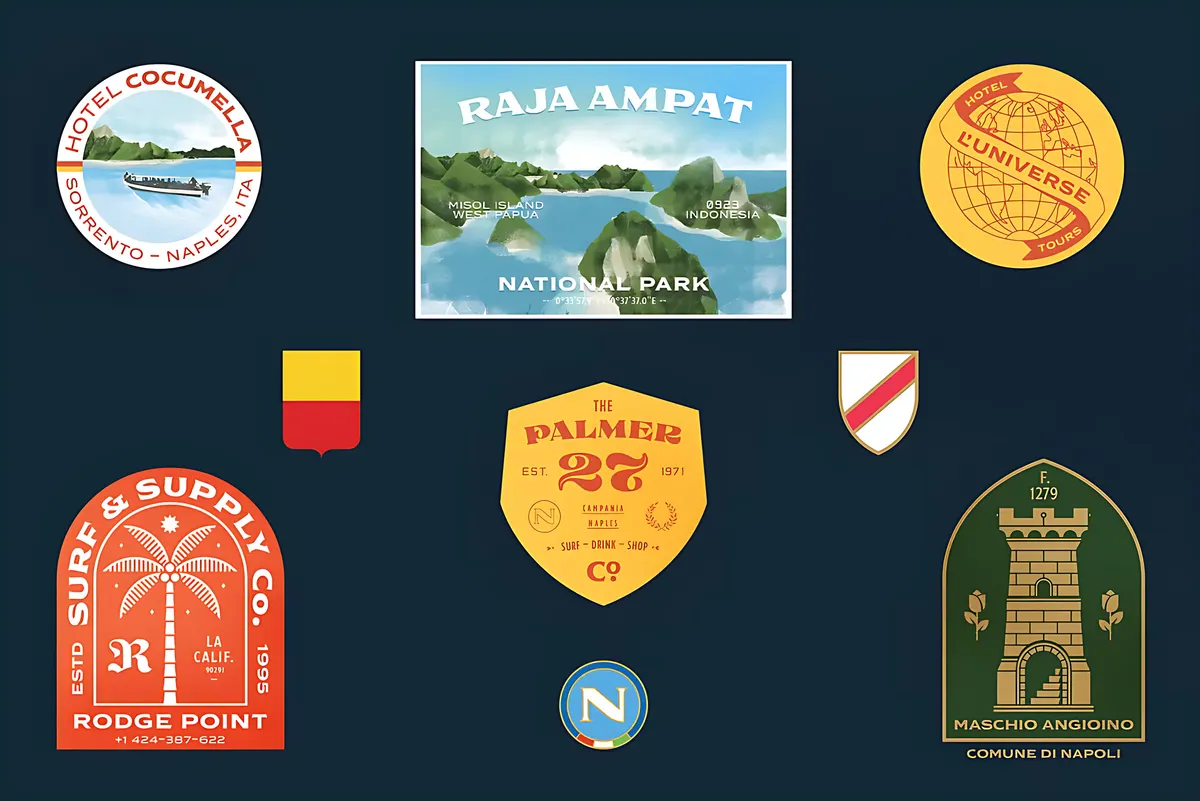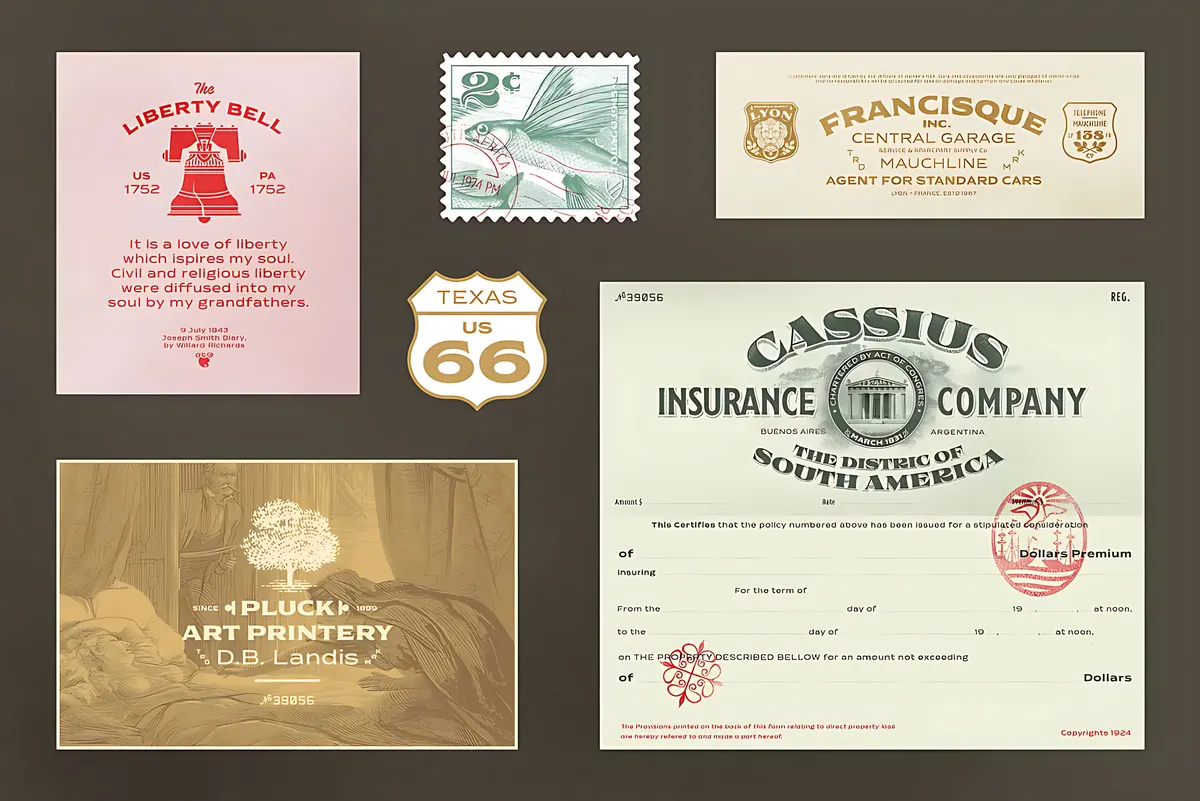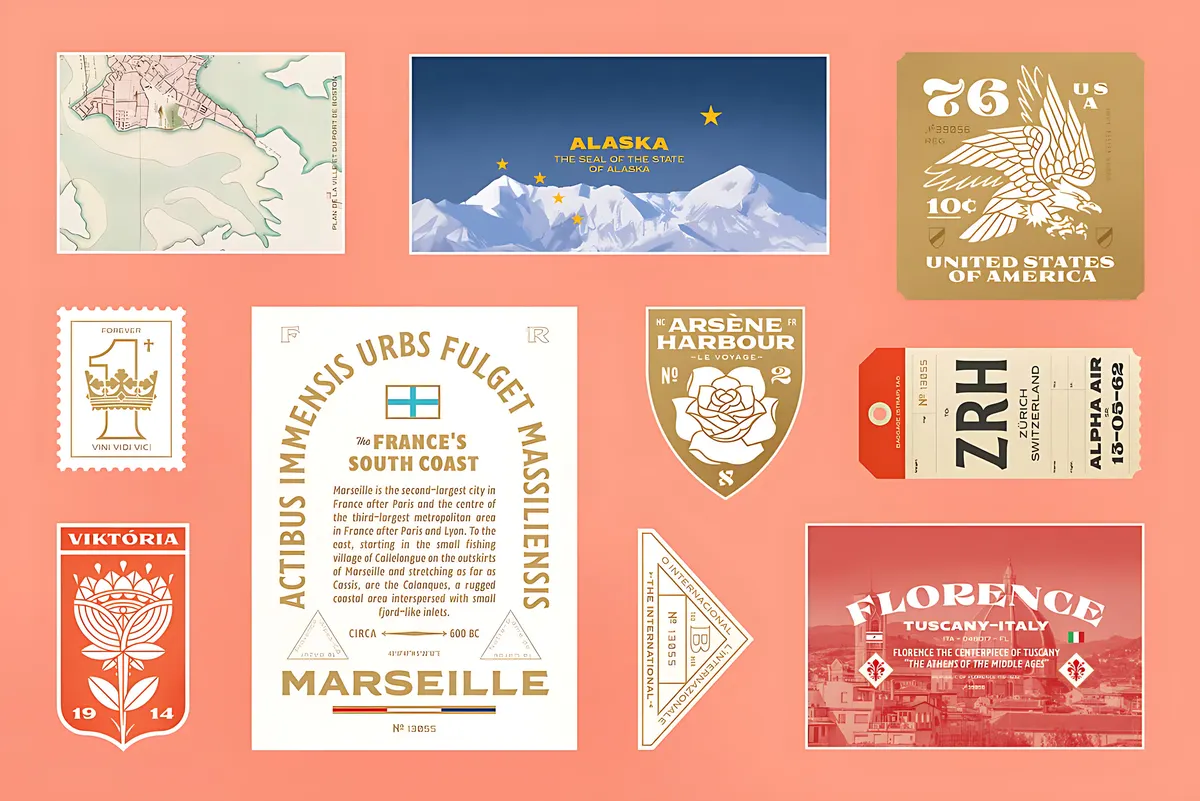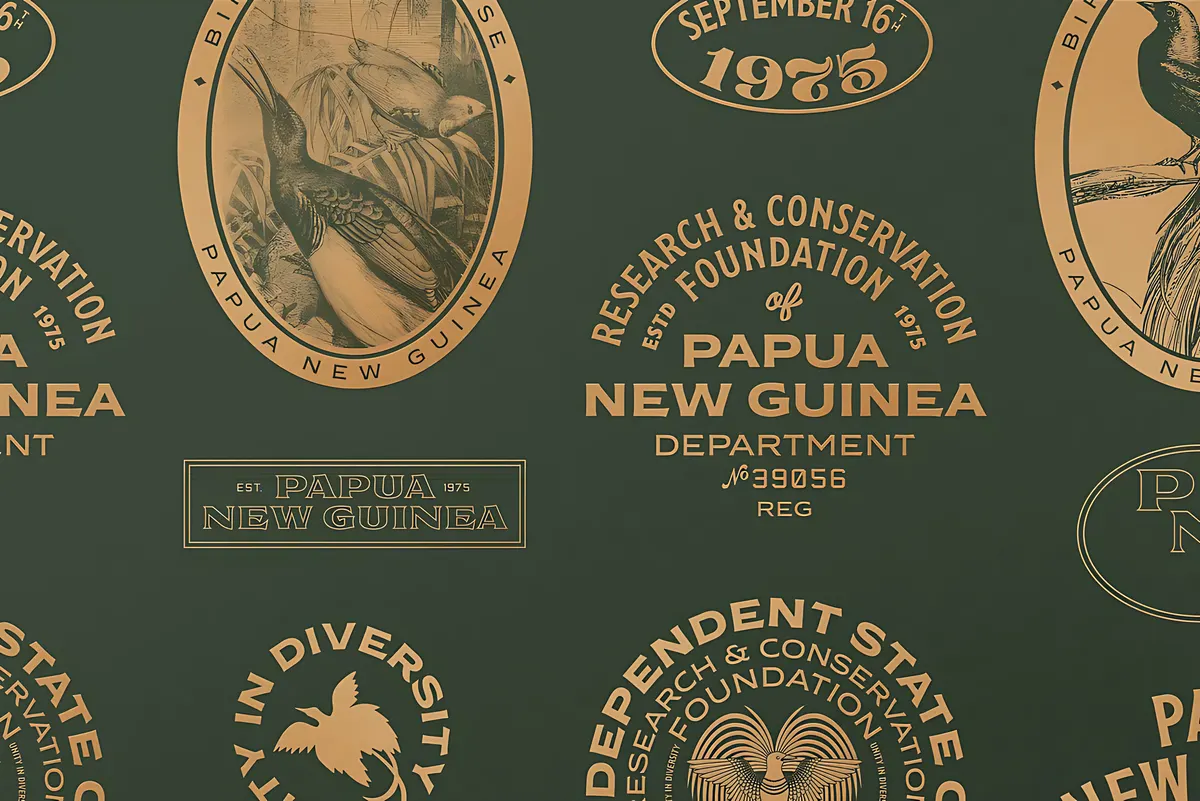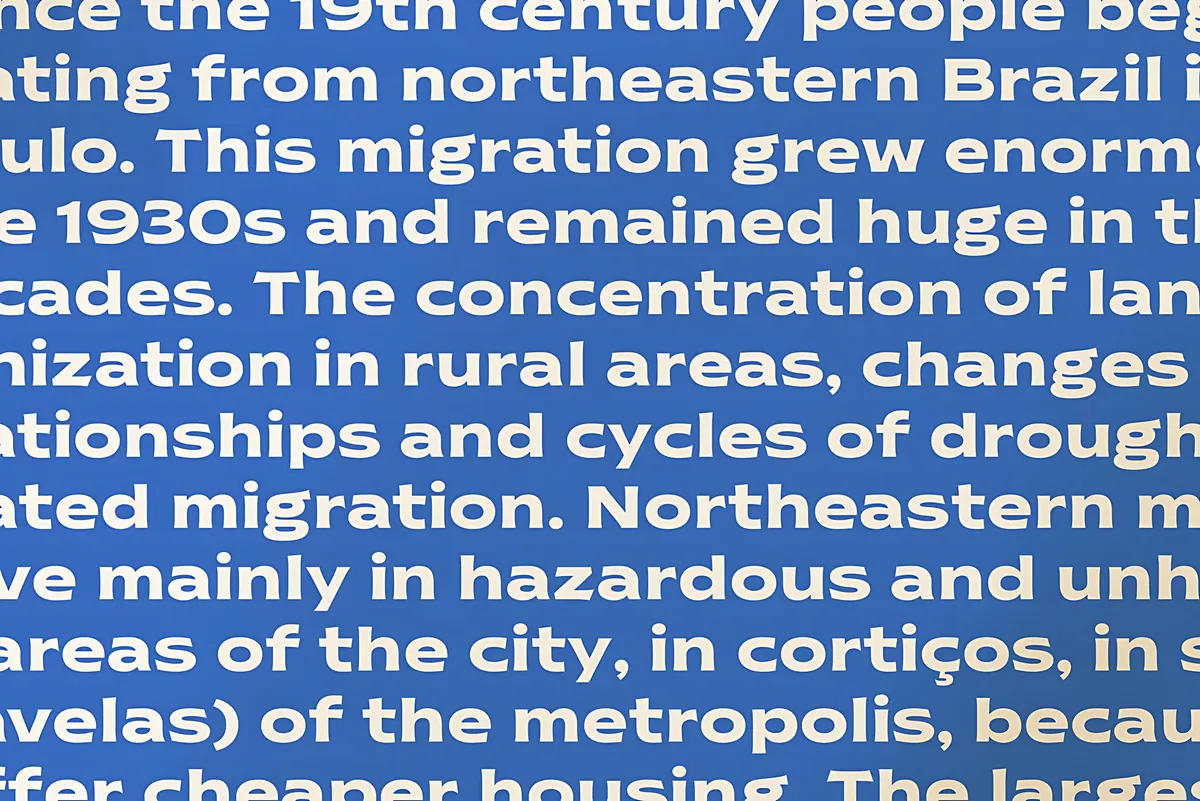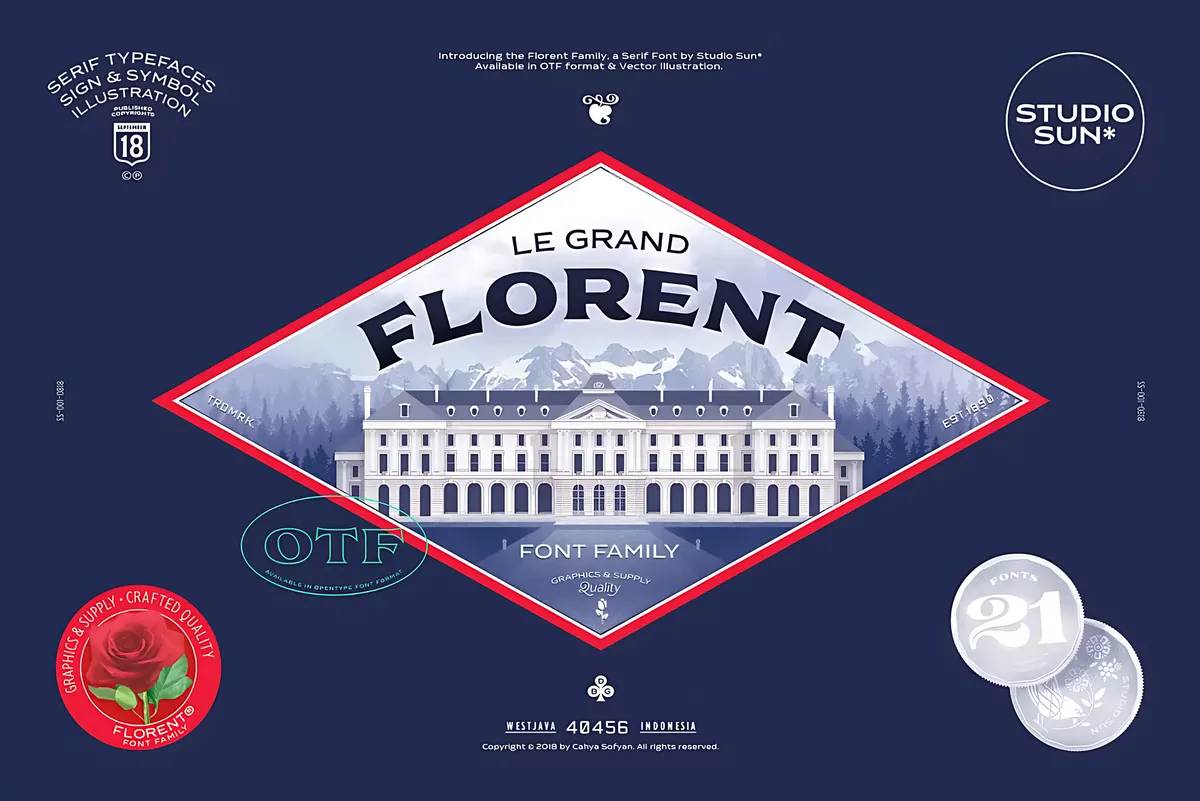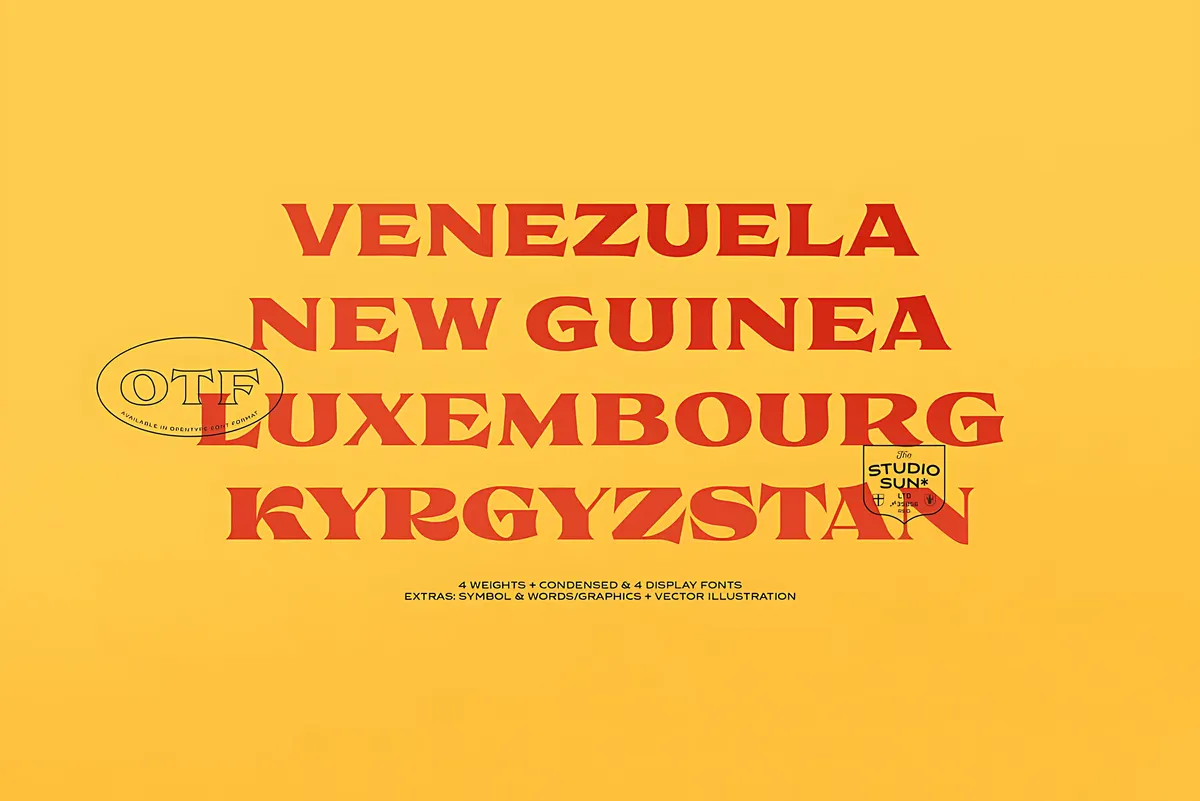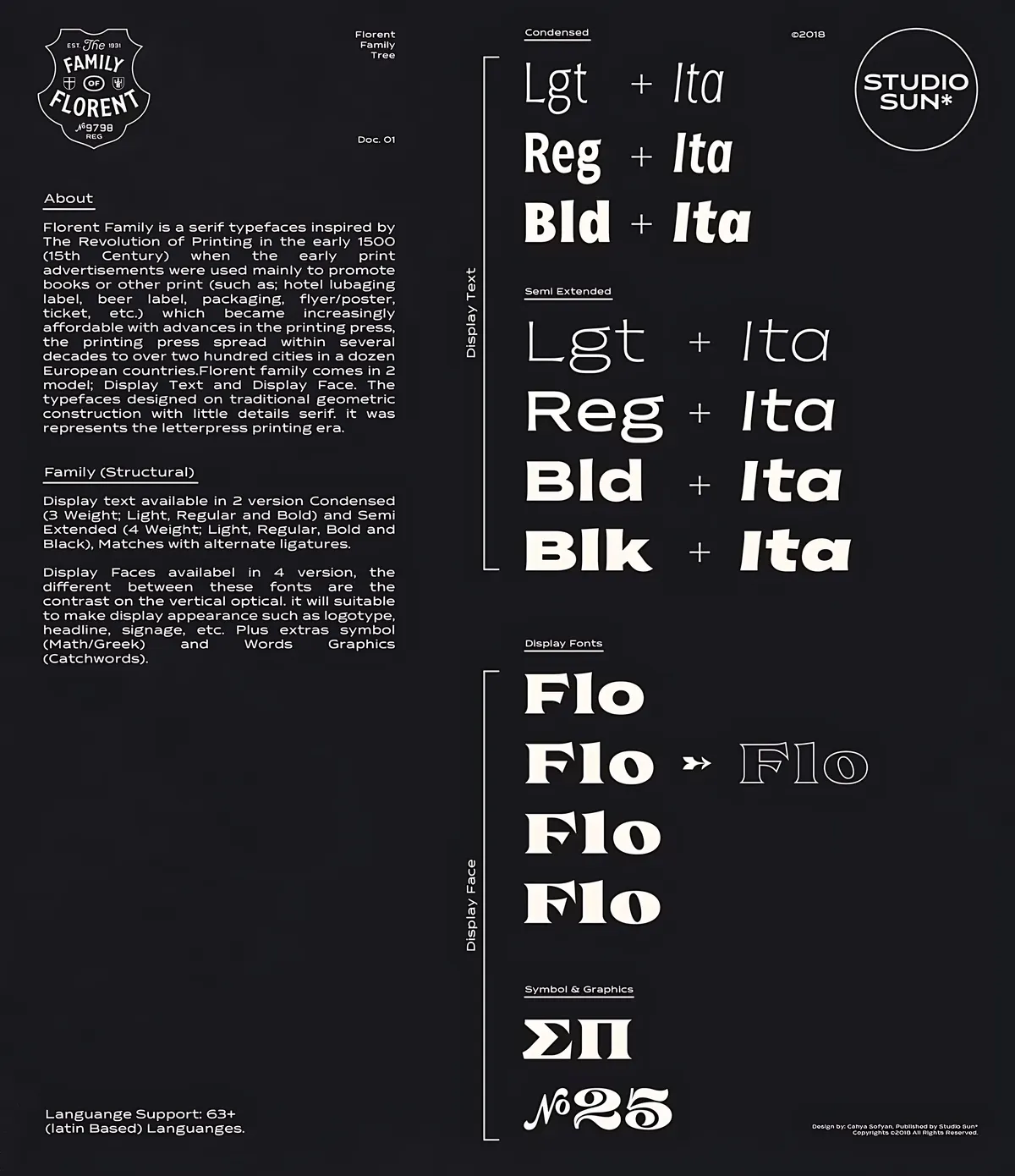
Florent Font Family
Florent grew out of the letterpress job shop, where a single printer produced hotel luggage labels, insurance certificates, admission stubs, and beer wrappers from the same cases of wood and metal type. The text styles are based on a geometric skeleton, with tiny wedge serifs pinned to blunt terminals. That construction descends from Copperplate Gothic and its engraved stationery lettering, though Florent adds a full lowercase and matching italics.
Cahya Sofyan split the release into two models. Display Text handles subheads, decks, and long label copy; the Display Faces are drawn for logotypes, signage, and headlines that occupy the top of a poster. Extras fill in the small parts: a Symbol font with math and Greek characters, Words Graphics catchwords for the connecting words on a badge, and a vector pack of fruit icons, mystical illustrations, and editable badge frames.